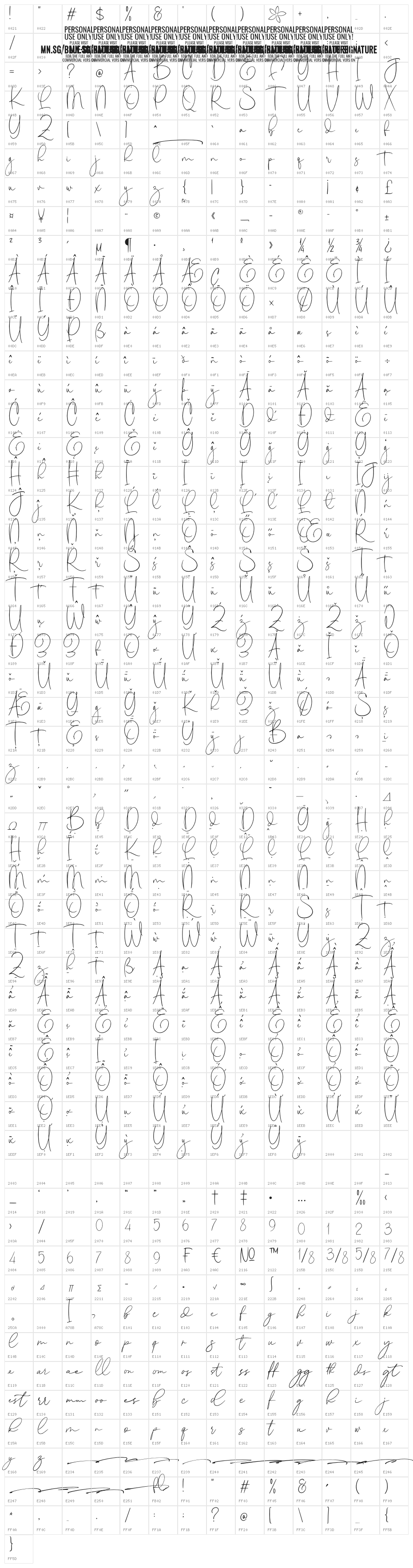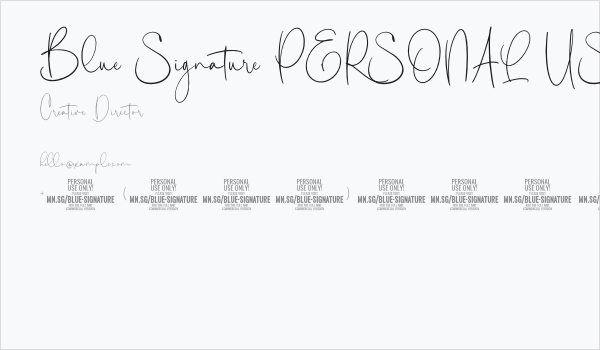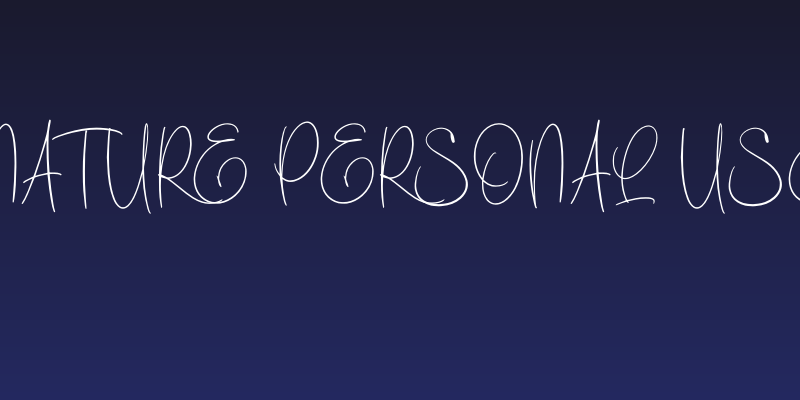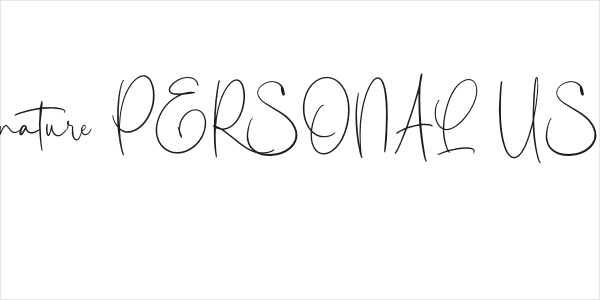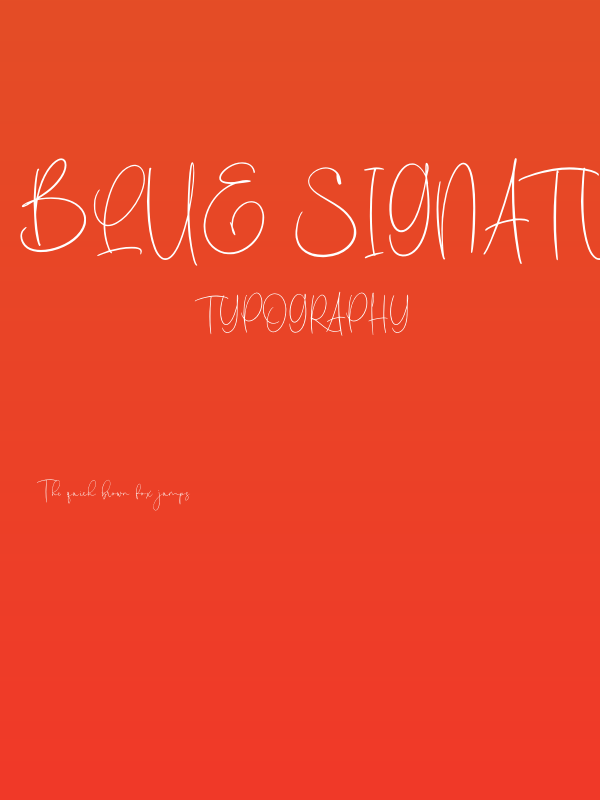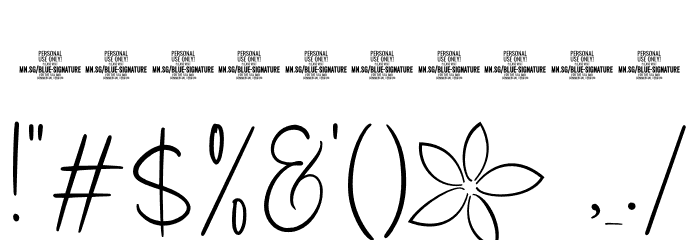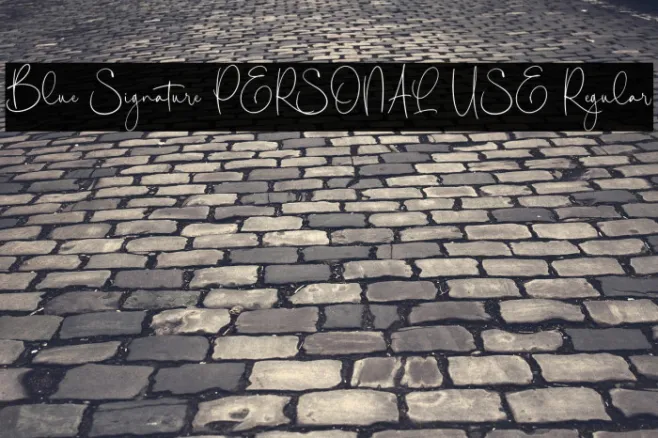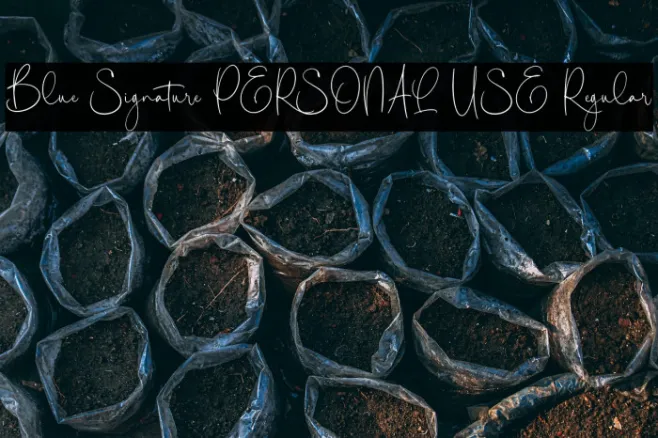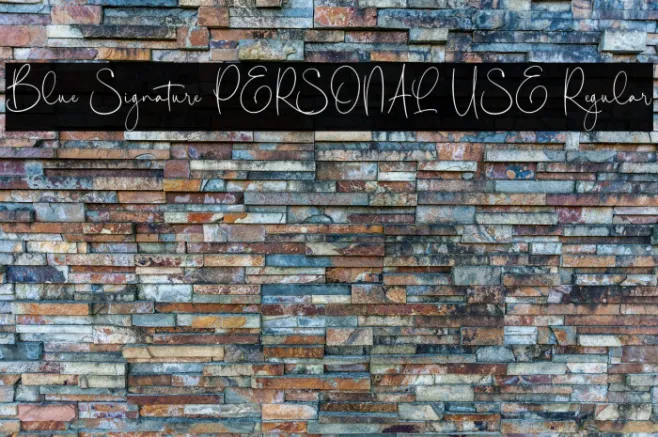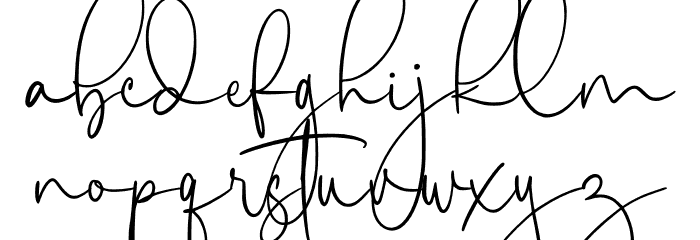
Blue Signature PERSONAL USE Regular Font
Blue Signature PERSONAL USE Regular Description
This font features a fluid and elegant handwritten style, characterized by its smooth, flowing lines and cursive elements. The uppercase letters are tall and slightly narrow, with a consistent stroke width that gives a cohesive appearance. The lowercase letters are more varied in height, adding a dynamic and lively feel. The font includes a full set of numerals and a variety of special characters, maintaining the same graceful aesthetic. Its overall look is sophisticated and artistic, making it suitable for projects that require a personal touch.
| Overall Style | Elegant, Artistic |
| Use Case | Logos, Invitations, Personal Branding |
| Proposed Projects | Ideal for wedding invitations, personal branding, greeting cards, and artistic projects. |